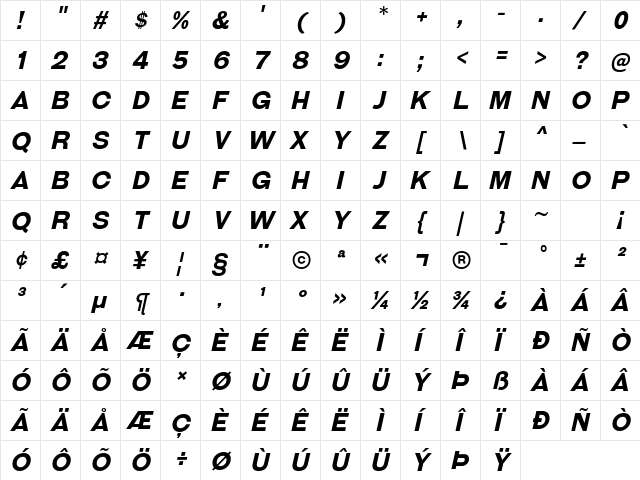
Galderglynn Titling Bold Italic
Design Context for Galderglynn Titling Typeface
Galderglynn Titling is a composed and adaptable typeface that performs quietly and consistently across a wide range of design contexts. The dynamic lean of this cut emphasises speed and emphasis in any layout. Its bold stroke weight gives it real presence on the page.
Pro Tip: Try Galderglynn Titling for annotation and caption copy alongside an upright companion — the contrast in angle creates a dynamic but ordered typographic system.